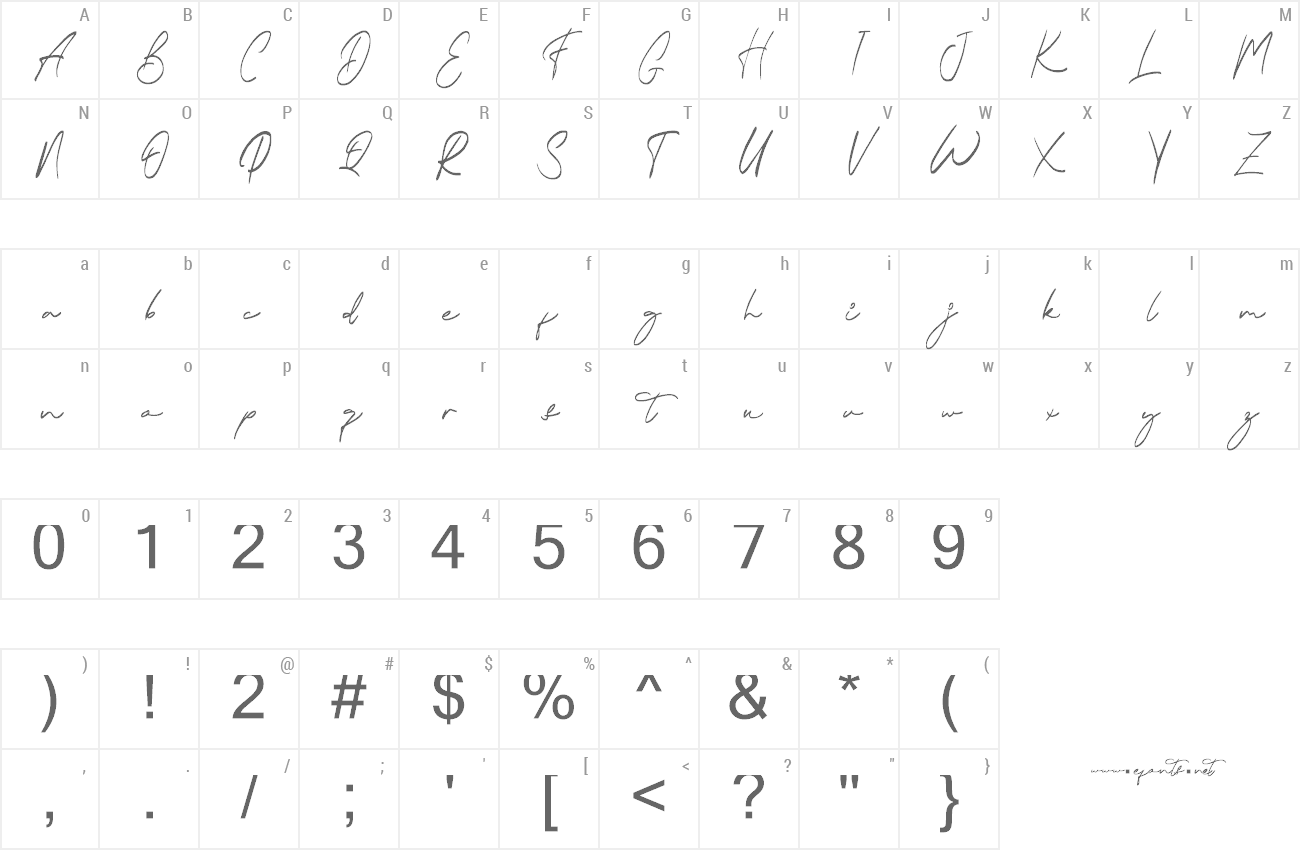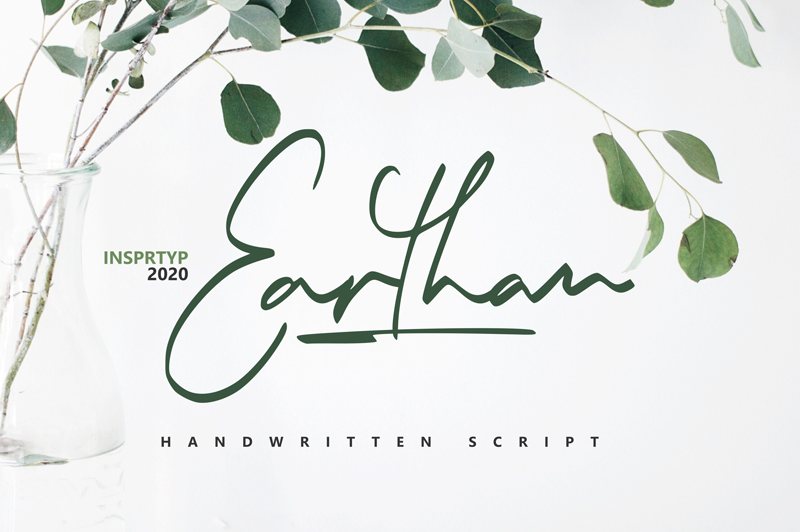
Free download Earthan Font
Preview and download Earthan Font. Created by Inspira Sign in Script Handwritten styles with Free for personal use license.
| Font name: | Earthan |
| Author: | Inspira Sign |
"Earthan" is a font display is made by hand, inspired by classic posters. comes with uppercase, lowercase, numerals, punctuations and so many variations on each character include OpenType alternates, common ligatures and also additional swash to let you customize your designs. Perfect to use for Logotype, Letterhead, Poster, Apparel Design, Label and etc. THIS IS DEMO VERSION. Support us with buy commercial use license! For Commercial Use, grab it fast on this link https://www.creativefabrica.com/designer/inspiratype/ref/238082 Any question, drop me email to inspiratype@gmail.com Thanks |